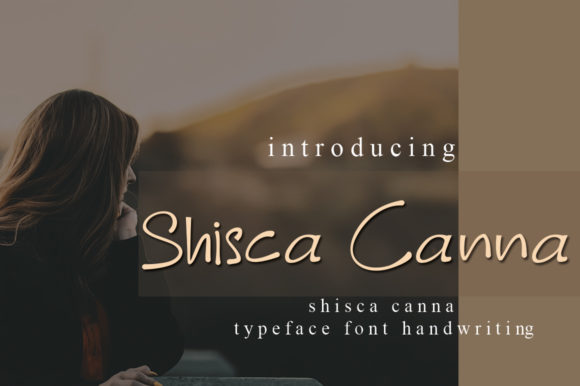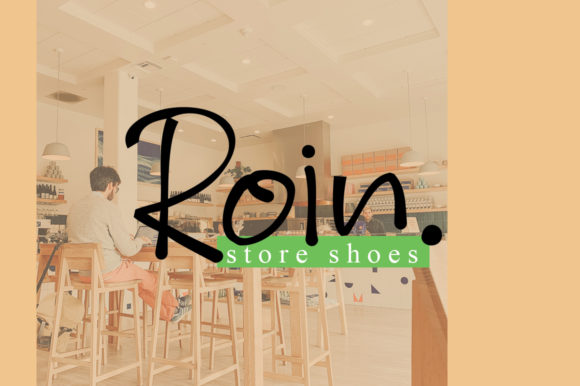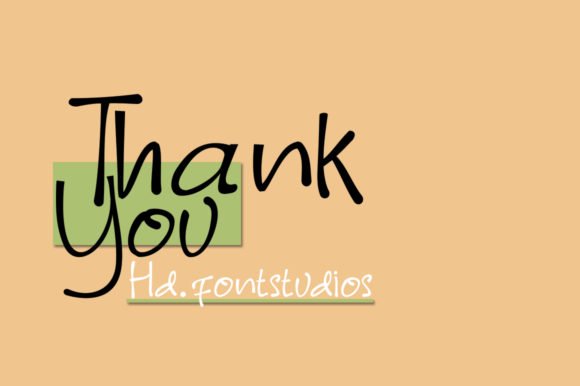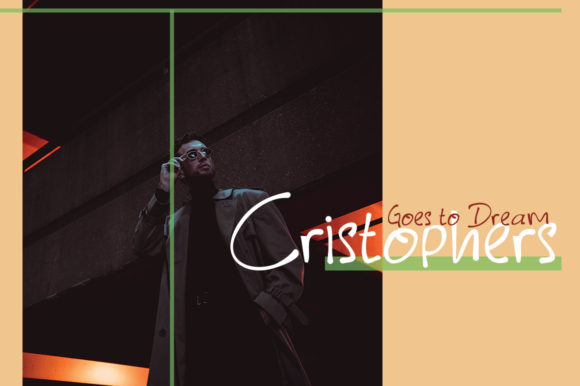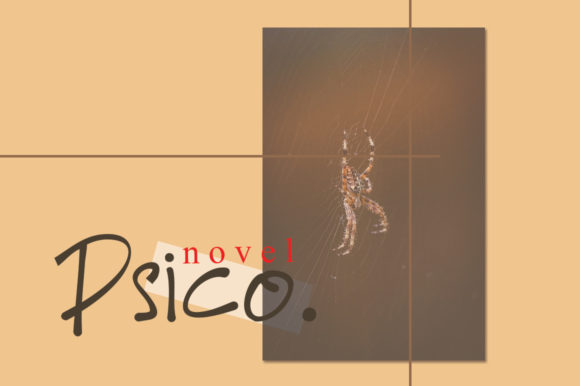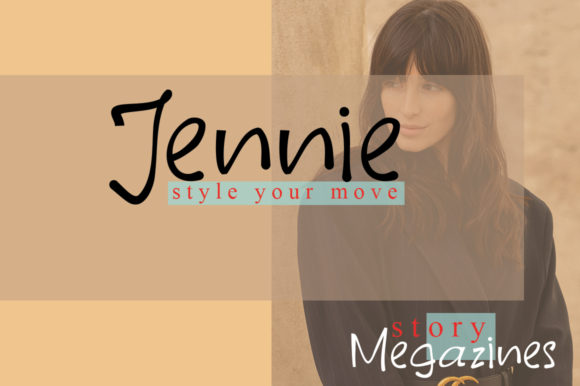
Shisca Canna Font
About Shisca Canna Font
Shisca Canna is a charming handwritten font with multilingual support. Perfect for any project with a relaxed whimsical feel.